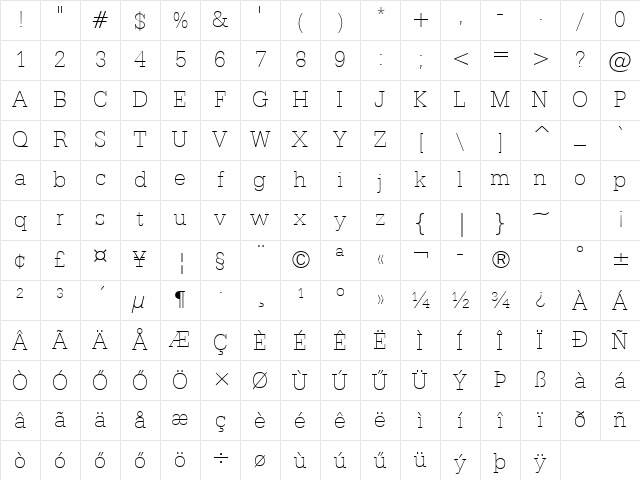
Huni_Serifa Th BT Regular
Design Context for Huni_Serifa Th BT
Huni_Serifa Th BT carries the refined structure of traditional serif typography, with bracketed terminals and considered proportions that communicate credibility and craft.
Pro Tip: Use Huni_Serifa Th BT for editorial body copy and considered headline work. Pair with a neutral sans for UI elements or captions to create a classic hierarchy.